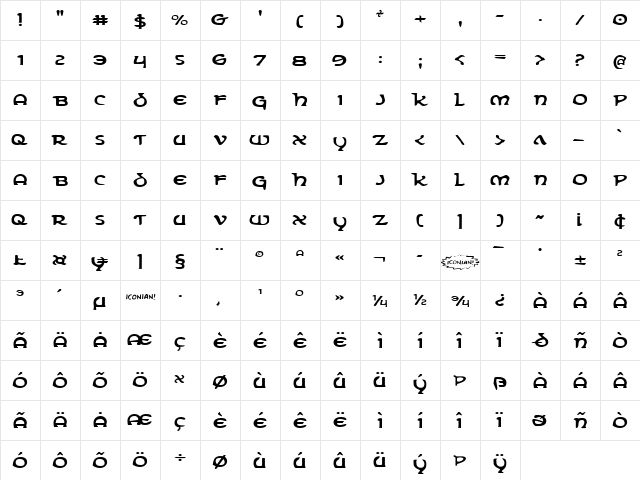
Erin Go Bragh Expanded Expanded
Design Context for Erin Go Bragh Expanded Typeface
Erin Go Bragh Expanded is a composed and adaptable typeface that performs quietly and consistently across a wide range of design contexts.